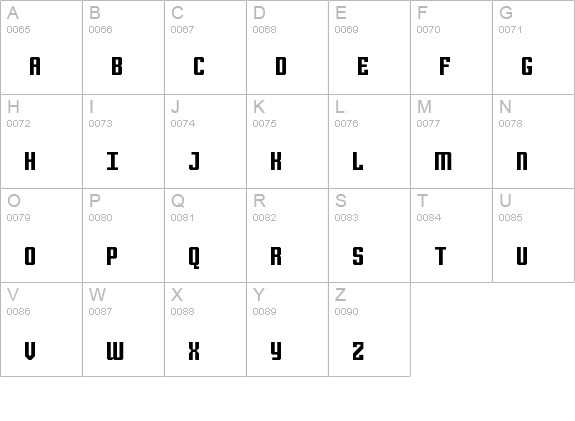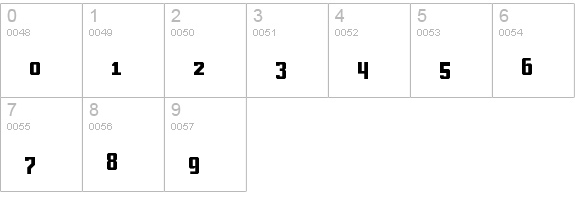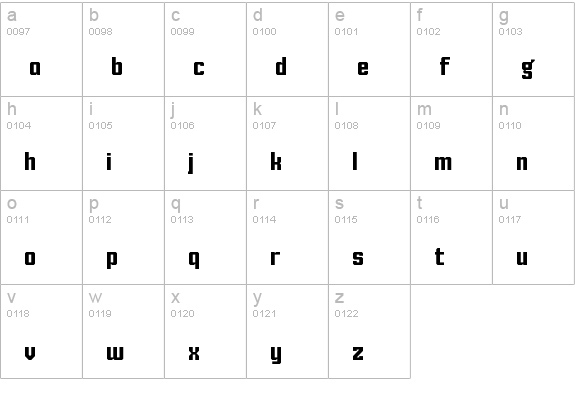
KING SANS Regular Font Details
KING SANS Regular is the standard, neutral variant in the KING typeface family \xE2\x80\x94 well suited to general body text, paragraphs, and standard typographic work.
KING SANS Regular font is a timeless and versatile typeface that exudes sophistication and class. With its clean lines and balanced proportions, this font is perfect for any design project, whether it's for print or digital media. What sets KING SANS Regular font apart is its ability to effortlessly blend into any design aesthetic, making it a go-to choice for designers and creatives alike. Its simplicity and elegance make it suitable for a wide range of applications, from branding and advertising to editorial design and web content. One of the best things about KING SANS Regular font is that it is available for free. Yes, you read that right! This high-quality font can be freely downloaded at FontsMarket.com, making it accessible to designers of all skill levels, regardless of budget constraints. Whether you're a professional designer looking to elevate your projects or a beginner exploring the world of typography, KING SANS Regular font is a must-have in your font library. Its versatility, legibility, and timeless appeal make it a valuable addition to any design toolkit. So why wait? Visit FontsMarket.com today and download KING SANS Regular font for free. Unleash your creativity and bring your designs to life with this exceptional typeface.